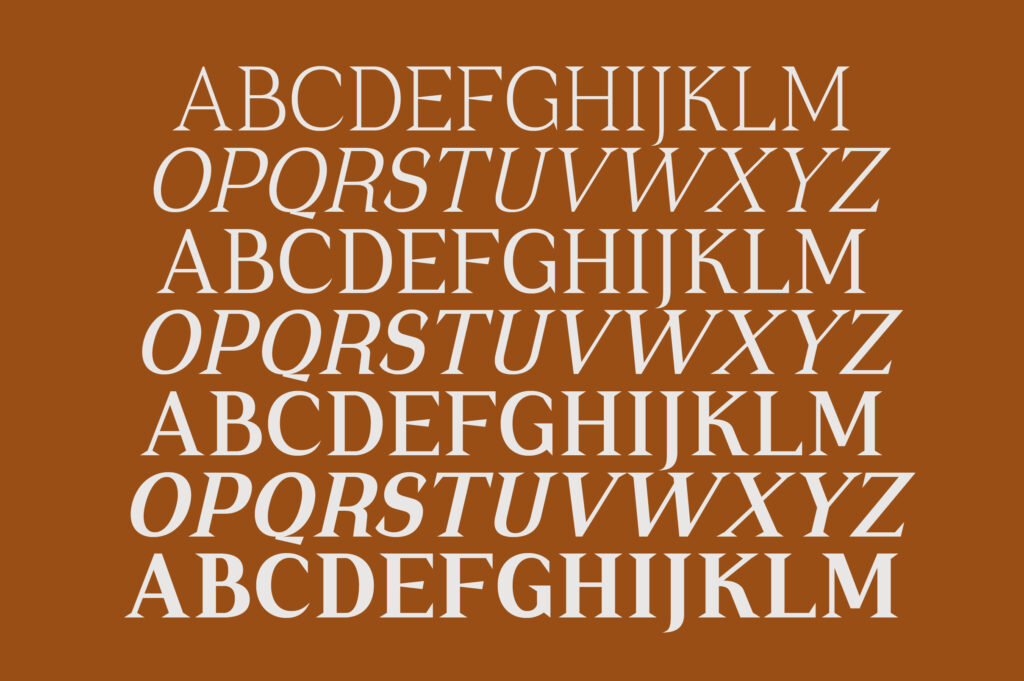
For years, minimalist sans-serifs ruled branding — clean, neutral, and digital-friendly. But trends evolve, and the pendulum is swinging back. Designers in 2025 are rediscovering what makes serif fonts magical: their texture, personality, and timeless sense of craft.
It’s not nostalgia. It’s evolution. Serifs now come with sharper detailing, variable weights, and modern proportions that feel elegant yet digital-ready.
🌿 Why Serifs Are Trending Again
1️⃣ Emotion and Heritage. Brands crave authenticity — and serif fonts deliver it naturally.
2️⃣ Luxury and Trust. Serif typography conveys authority and permanence — a reason why high-end fashion and editorial brands use it religiously.
3️⃣ Modern Craft. Foundries like Lettertype Studio reimagine classics with a contemporary twist — like Cardival’s bold elegance or Rotifera’s editorial charm.
4️⃣ Digital Maturity. As screens improve, fine serif details render beautifully even on mobile displays.
This comeback isn’t about returning to the past; it’s about reconnecting with emotion in a digital-first world.
🪶 When to Use Serifs
Serifs shine when your project needs personality and depth:
Luxury branding (perfume, fashion, art galleries)
Editorial layouts (magazines, book covers)
Professional portfolios (architecture, creative studios)
High-end websites that balance classic and contemporary energy
A well-chosen serif font can make a statement that feels both human and timeless.
✨ Final Takeaway
Serif fonts aren’t old — they’re eternal. When you combine them with thoughtful design, they transform words into visual experiences.